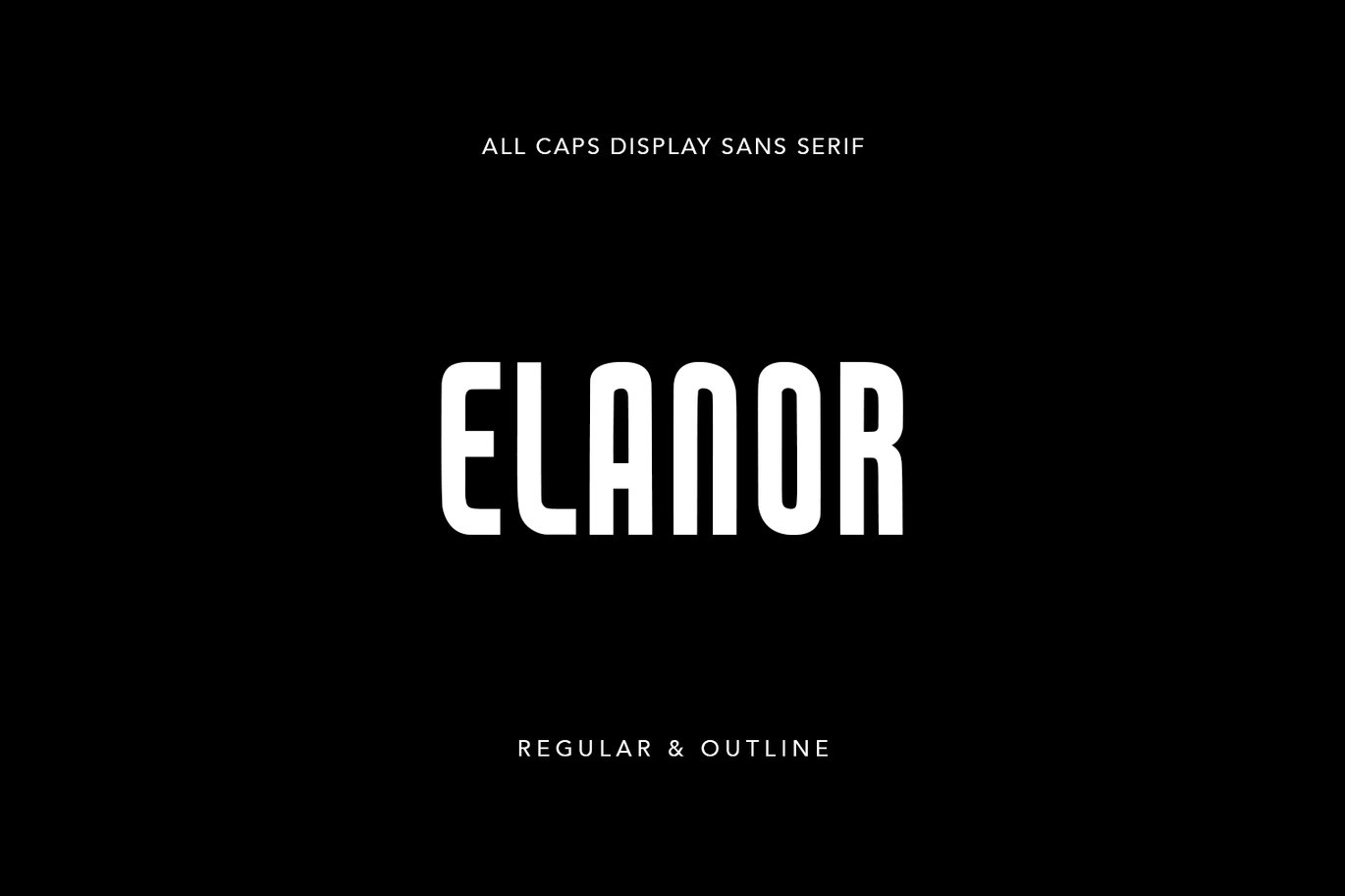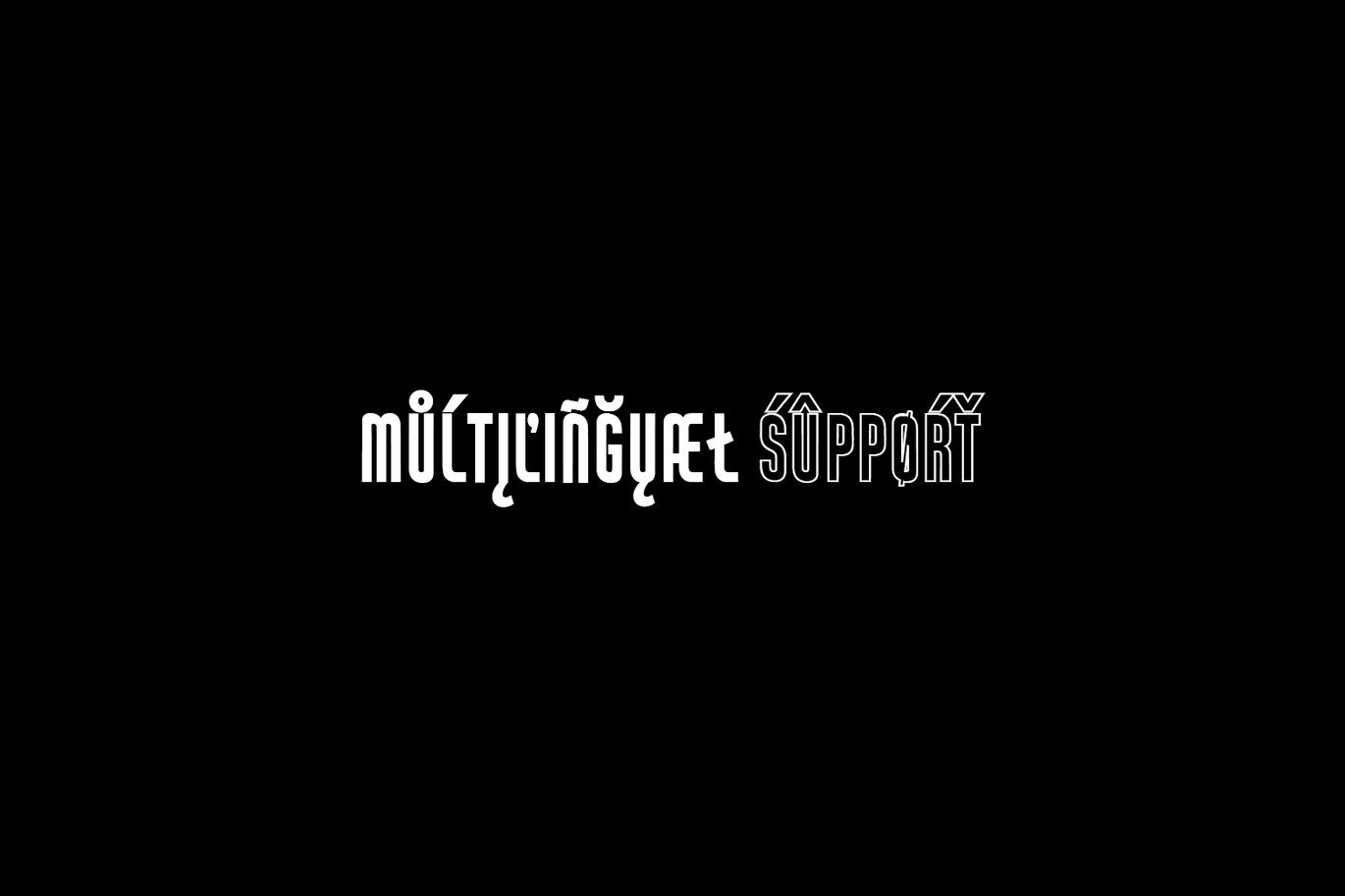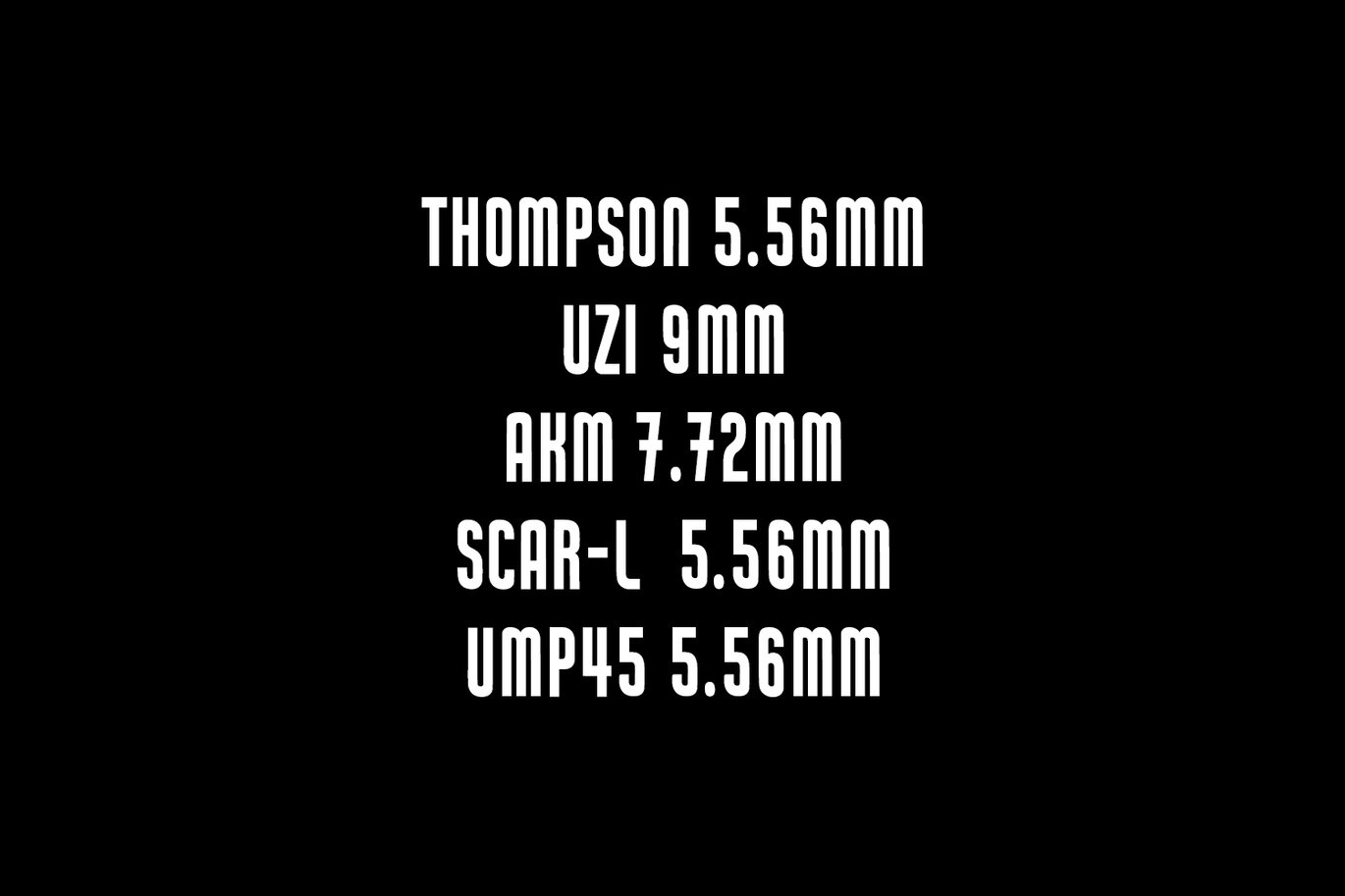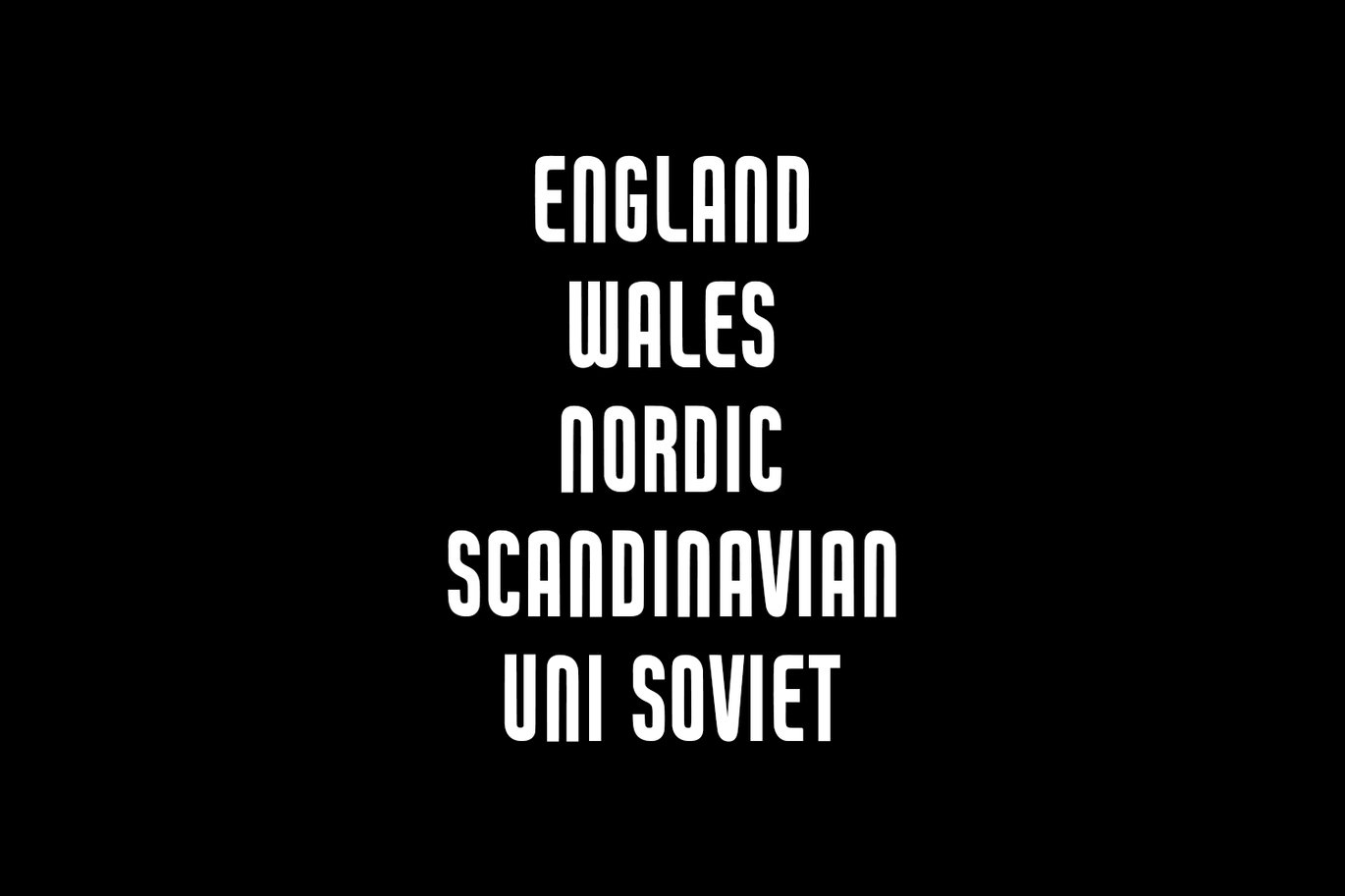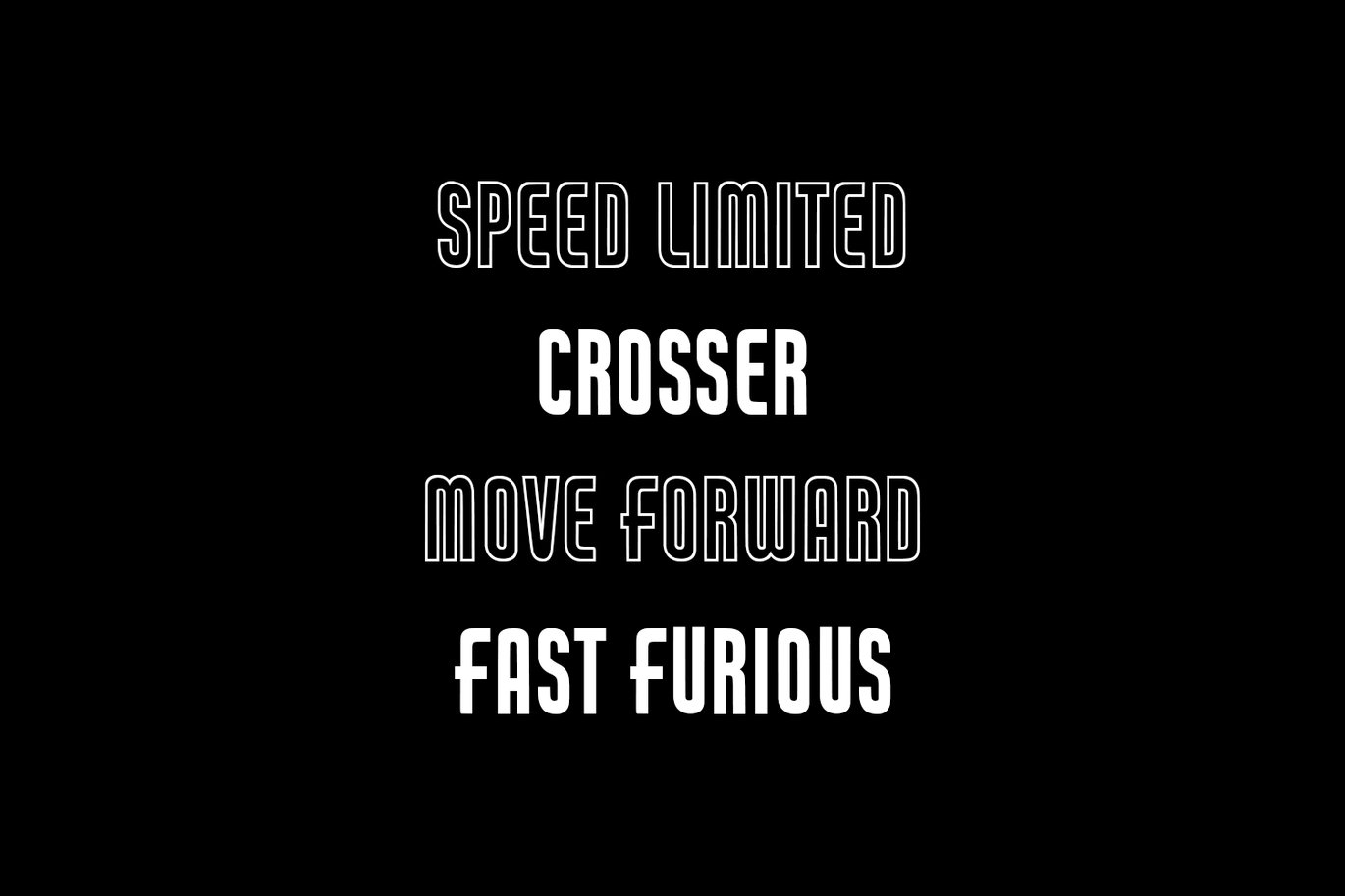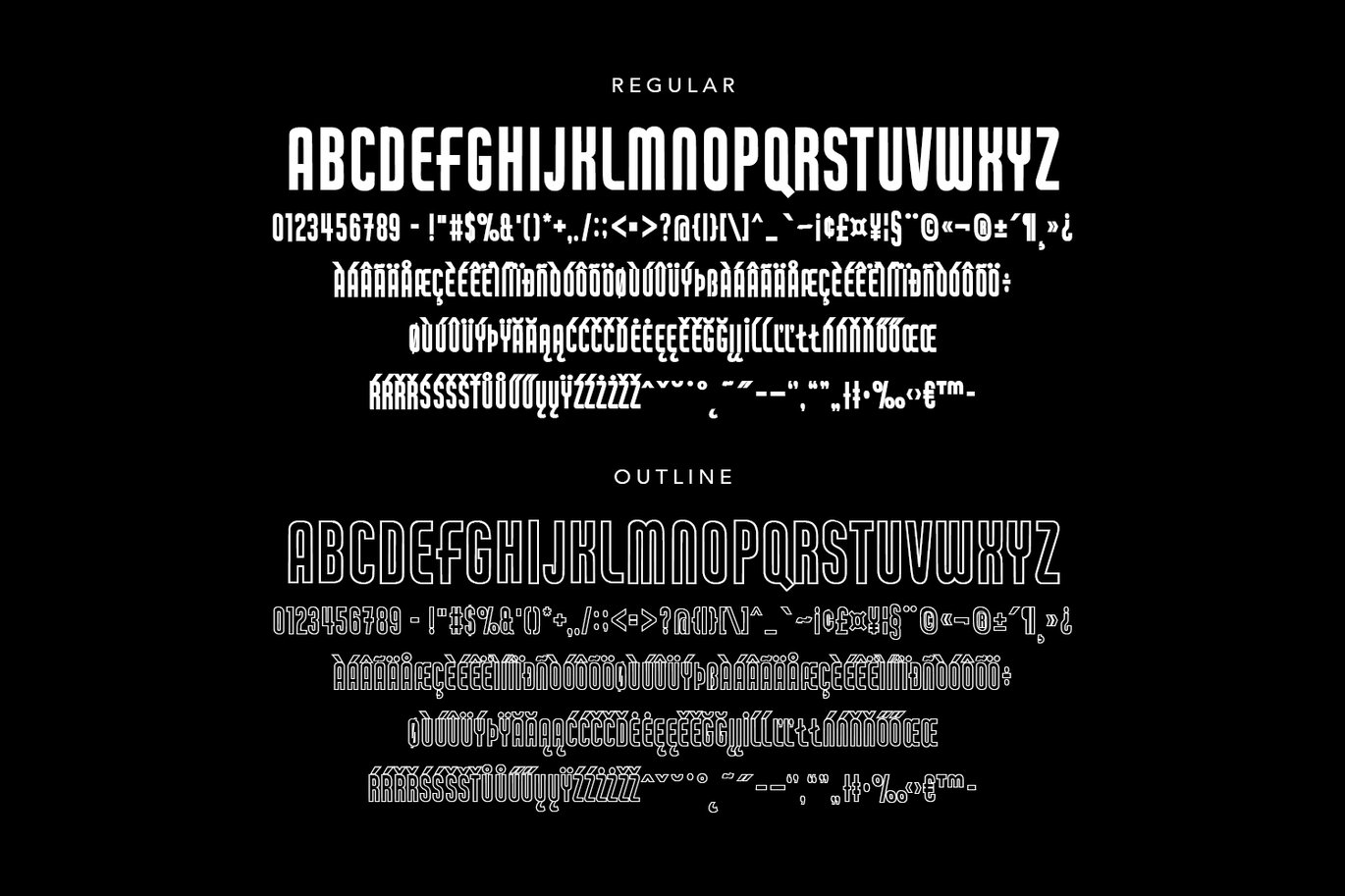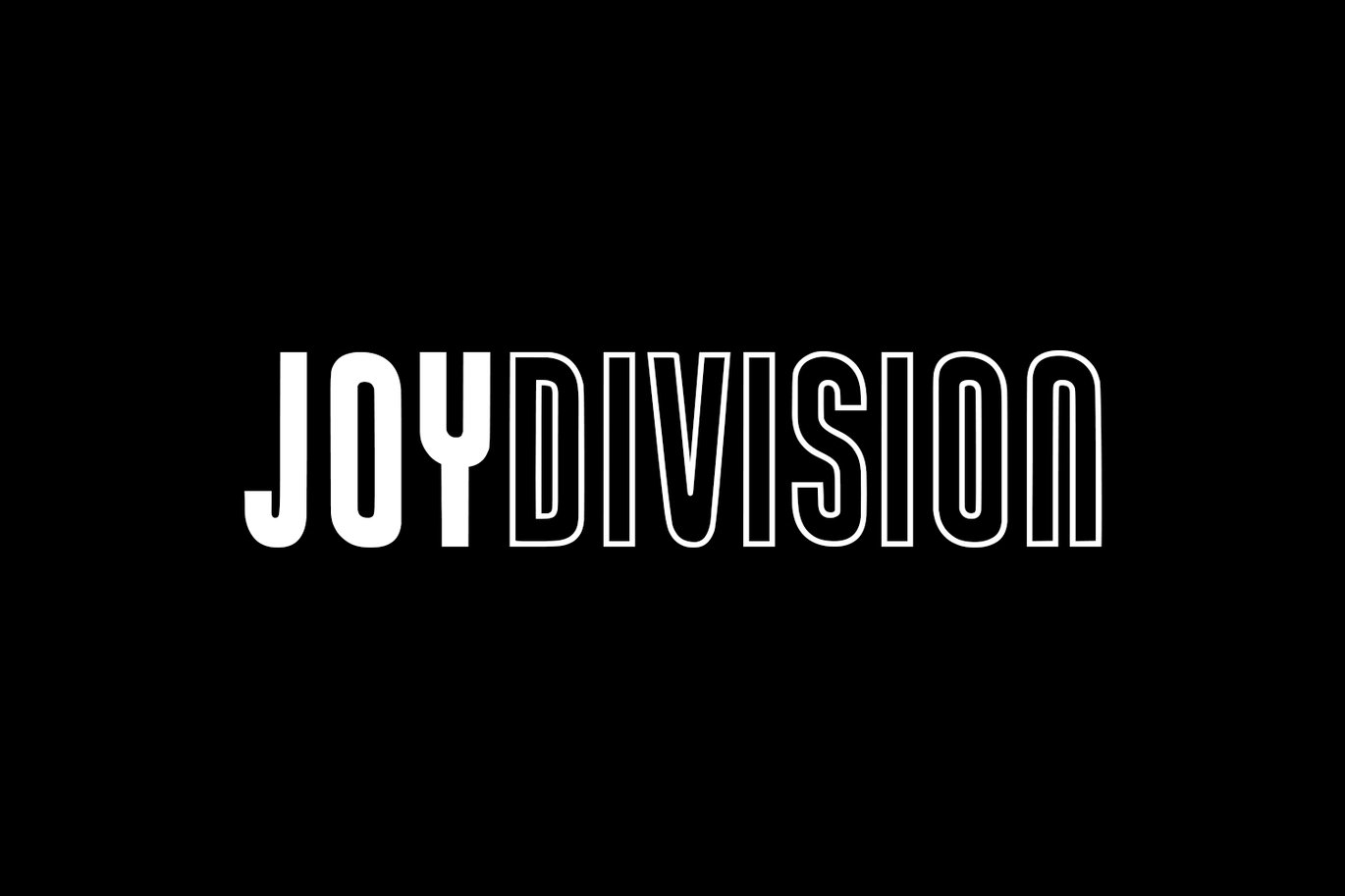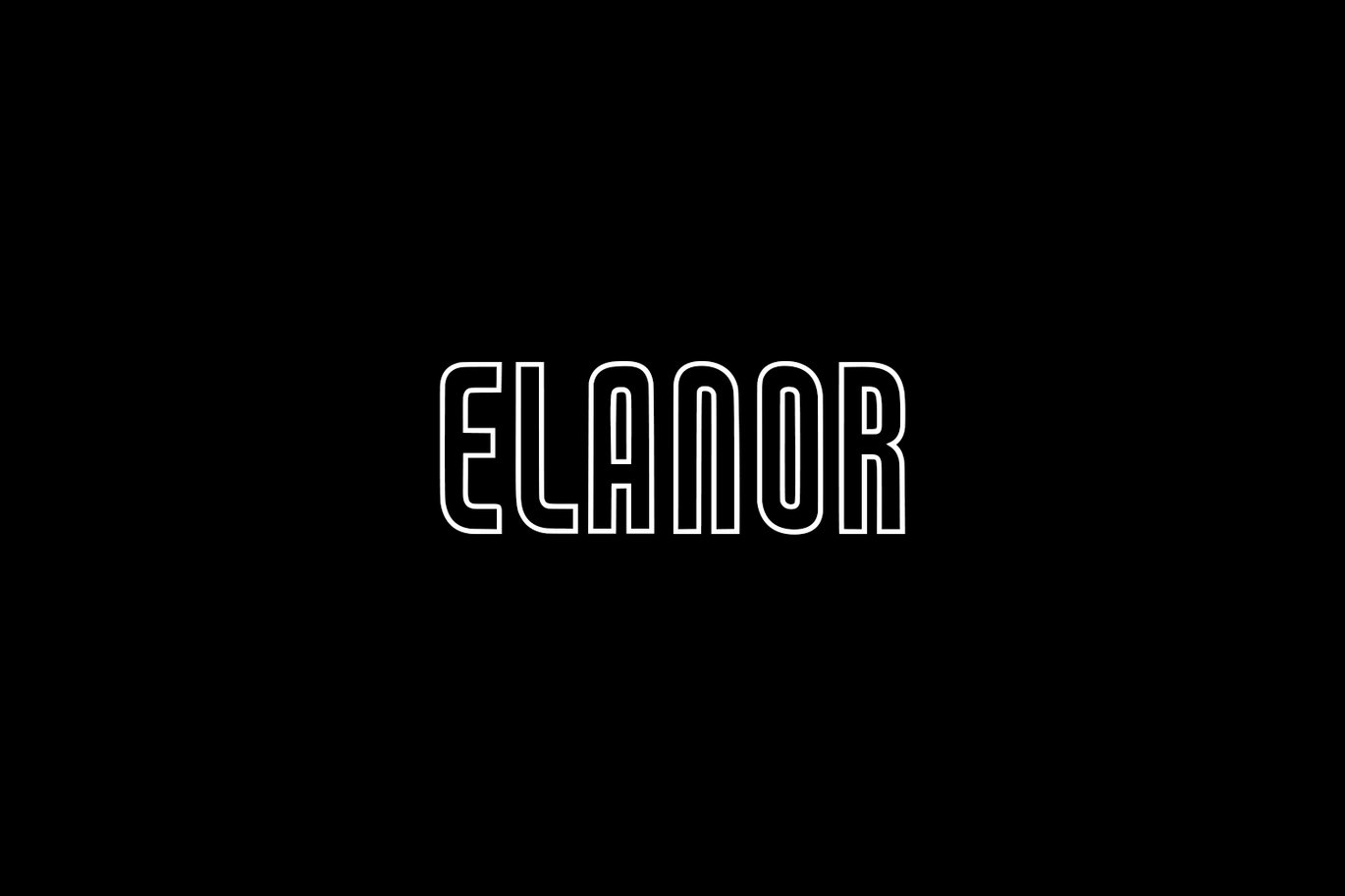
Elanor Display Sans Serif Regular Outline Font
Elanor is a sans serif with Outline & Regular font files. Elanor Sans is the improved of the previously Serrona Typeface. Elanor Sans is perfectly suited to branding, logos, magazines, films, website, headlines, titles, captions, games, apps, posters, t-shirts and more.